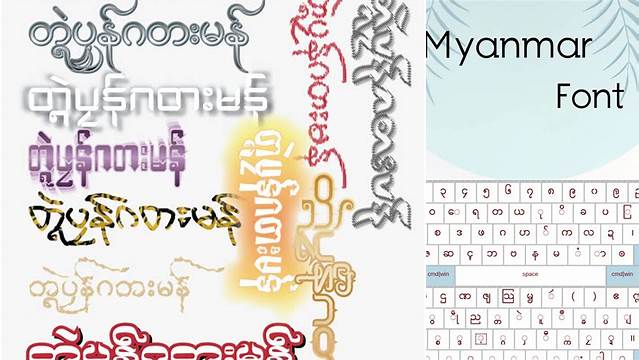
Hey guys! Are you looking to give your digital projects a touch of Myanmar flair? If so, you've come to the right place! In this article, we're diving deep into the world of Myanmar frame fonts, specifically focusing on how you can download them for free on your PC running Windows 10. We'll cover everything from what frame fonts are, why they're so cool, and where you can find some awesome options. Plus, we'll walk you through the installation process step by step. So, whether you're a graphic designer, a student working on a presentation, or simply someone who loves unique typography, buckle up and let's get started!
When we talk about Myanmar frame fonts, we're referring to a specific style of fonts that incorporate traditional Burmese script elements into a decorative frame or border. These fonts are not just about the characters themselves; they're about the artistic presentation of those characters. The frames can range from simple lines and geometric shapes to elaborate floral patterns and intricate designs. This makes them incredibly versatile for a wide range of applications. Think about using them for invitations, posters, social media graphics, or even website headers. The possibilities are endless! One of the biggest advantages of using Myanmar frame fonts is the cultural richness they bring to your work. They allow you to celebrate and showcase the beauty of Burmese culture and heritage in a contemporary and accessible way. This is particularly important in a globalized world where preserving cultural identity is more crucial than ever. By incorporating these fonts into your designs, you're not just adding visual appeal; you're also making a statement about the importance of cultural diversity and appreciation. Moreover, using frame fonts can significantly enhance the visual impact of your projects. The frames add an extra layer of sophistication and elegance, making your text stand out and capture attention. Imagine a wedding invitation with the names of the couple written in a beautifully framed Myanmar font – it instantly elevates the design and makes it more memorable. The same goes for posters, banners, and other promotional materials. A well-chosen frame font can be the difference between a design that blends in and one that truly shines.
What are Myanmar Frame Fonts?
Okay, let's break down what exactly Myanmar frame fonts are. Imagine the regular Burmese script, but now picture it encased in a beautiful, decorative frame. That's the essence of a frame font! These fonts aren't just about the letters; they're about the entire visual presentation. The frames themselves can be super diverse – we're talking simple lines, geometric shapes, floral patterns, and even intricate traditional designs. This makes them incredibly versatile for all sorts of creative projects.
The beauty of Myanmar frame fonts lies in their ability to blend functionality with aesthetics. They're not just about conveying information; they're about doing it in a visually appealing and culturally relevant way. This is especially important in a world where visual communication is paramount. Think about how much we rely on images and design to capture our attention, whether it's on social media, websites, or printed materials. Frame fonts offer a unique way to make your message stand out and resonate with your audience. For instance, consider the use of Myanmar frame fonts in branding. A logo or tagline set in a distinctive frame font can create a strong visual identity for a business or organization. It can communicate a sense of tradition, elegance, or creativity, depending on the style of the frame. This can be particularly effective for businesses that want to convey a connection to Burmese culture or heritage. In the realm of digital design, Myanmar frame fonts can be a game-changer. They can add a touch of sophistication to website headers, social media graphics, and online advertisements. The frames can help to draw the eye and create a focal point, ensuring that your message gets noticed. Furthermore, frame fonts can be used to create a sense of visual hierarchy, making it easier for users to navigate and understand your content. Beyond their aesthetic appeal, Myanmar frame fonts also play a crucial role in preserving and promoting Burmese culture. By using these fonts, designers and content creators can help to keep the traditional script alive and relevant in the modern world. This is particularly important for younger generations who may not have as much exposure to Burmese script in their daily lives. Frame fonts offer a way to bridge the gap between tradition and modernity, making cultural heritage accessible and engaging for a wider audience. The creativity knows no bounds! You can use them for invitations, posters, social media graphics, website headers – you name it. They add a touch of elegance and cultural richness to anything you create. Think about a wedding invitation with the names framed in a beautiful font, or a poster announcing a cultural event. The possibilities are truly endless.
Why Use Myanmar Frame Fonts?
So, why should you even bother with Myanmar frame fonts? Well, there are tons of reasons! First off, they bring a unique cultural flair to your work. If you're looking to celebrate Burmese heritage or just want something different, these fonts are a fantastic choice. They instantly add a touch of authenticity and visual interest that you won't find with standard fonts. But it's not just about aesthetics. Myanmar frame fonts can also help you make a statement. In a world saturated with generic typography, using a frame font can help your message stand out and grab attention. This is especially useful for branding, advertising, and any other situation where you need to make a strong impression.
Beyond their visual appeal, Myanmar frame fonts can also serve a practical purpose. The frames themselves can help to organize and highlight text, making it easier to read and understand. This is particularly useful for longer pieces of text, such as articles, reports, or presentations. By using frame fonts strategically, you can guide the reader's eye and ensure that key information is not overlooked. One of the most compelling reasons to use Myanmar frame fonts is the ability to connect with your audience on a deeper level. By incorporating cultural elements into your designs, you can create a sense of belonging and shared identity. This is particularly important for businesses and organizations that serve Burmese communities or want to convey a message of cultural inclusivity. Frame fonts can help you to build trust and rapport with your audience, making your message more impactful and memorable. Moreover, Myanmar frame fonts can be a powerful tool for storytelling. The frames themselves can evoke certain emotions or associations, adding an extra layer of meaning to your text. For example, a font with delicate floral frames might be perfect for a romantic poem or a heartfelt letter. A font with bold, geometric frames might be more suitable for a business presentation or a promotional poster. By carefully choosing the right frame font, you can enhance the narrative power of your words and create a more engaging experience for your audience. The unique visual appeal of frame fonts is another compelling reason to use them. They can transform a simple text into a work of art, adding a touch of elegance and sophistication to any project. Whether you're designing a wedding invitation, a business card, or a website header, a well-chosen frame font can make all the difference. They can also help to create a sense of visual consistency across your brand, making your designs more recognizable and memorable.
When you're searching for free Myanmar frame fonts, it's important to pay attention to the licensing terms. Some fonts are free for personal use only, while others can be used for commercial projects. Make sure you understand the terms before you start using the font in your work. This will help you to avoid any potential legal issues down the road. Another tip for finding high-quality Myanmar frame fonts is to look for fonts that have been professionally designed. These fonts will typically have a more polished and refined look, and they will be more likely to render correctly across different devices and platforms. You can often tell if a font has been professionally designed by looking at the details, such as the kerning (the spacing between letters) and the overall consistency of the design. Don't be afraid to experiment with different fonts until you find one that you love. There are so many amazing Myanmar frame fonts out there, so take your time and explore your options. You might even want to try mixing and matching different fonts to create a unique and personalized look. Remember, the goal is to find a font that reflects your style and enhances your message. When you're downloading fonts from the internet, it's always a good idea to scan the files for viruses before you install them. This will help to protect your computer from malware and other security threats. You can use a free online virus scanner or your computer's built-in antivirus software to scan the files. Finally, be sure to organize your fonts in a way that makes them easy to find and use. You can create folders for different font styles or projects, or you can use a font management tool to keep track of your fonts. This will save you time and frustration in the long run, and it will help you to stay organized and productive.
How to Download and Install Myanmar Frame Fonts on Windows 10
Using Myanmar frame fonts opens up a world of creative possibilities, allowing you to express your ideas in a visually compelling and culturally sensitive way. Whether you're designing a wedding invitation, a business card, or a website header, these fonts can help you to make a lasting impression. By following the tips and guidelines outlined in this article, you can ensure that you're using Myanmar frame fonts effectively and creating designs that are both beautiful and meaningful. The journey of exploring different fonts and their applications is an exciting one. Don't hesitate to experiment with various styles and combinations to discover what resonates best with your vision. With the right Myanmar frame font, you can transform your projects from ordinary to extraordinary, adding a touch of elegance and cultural richness that will captivate your audience.